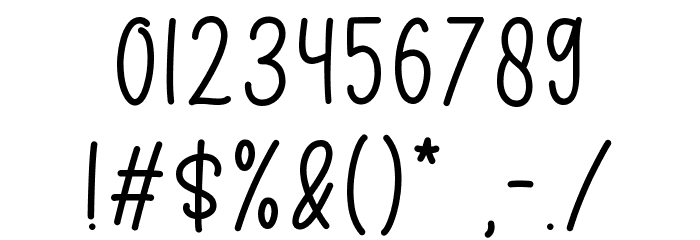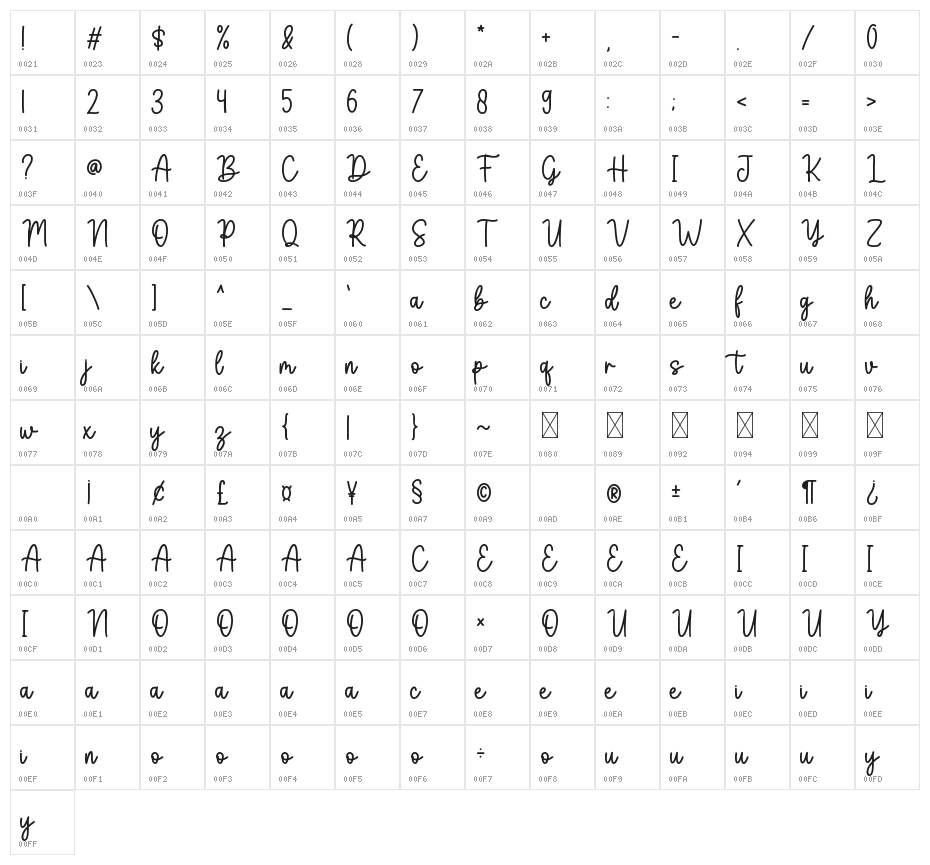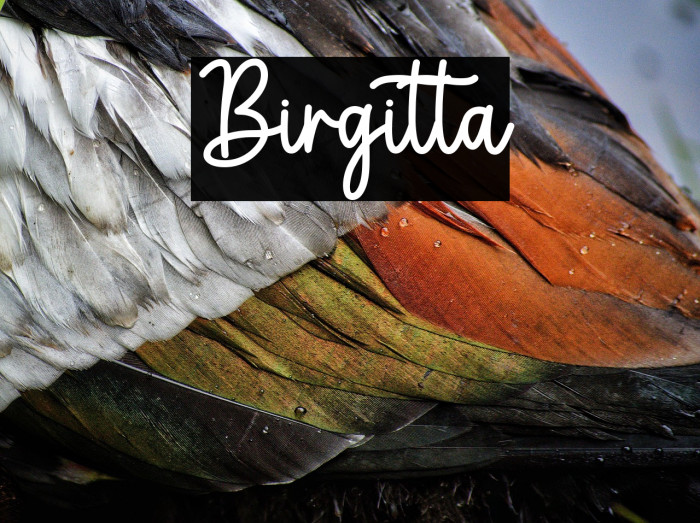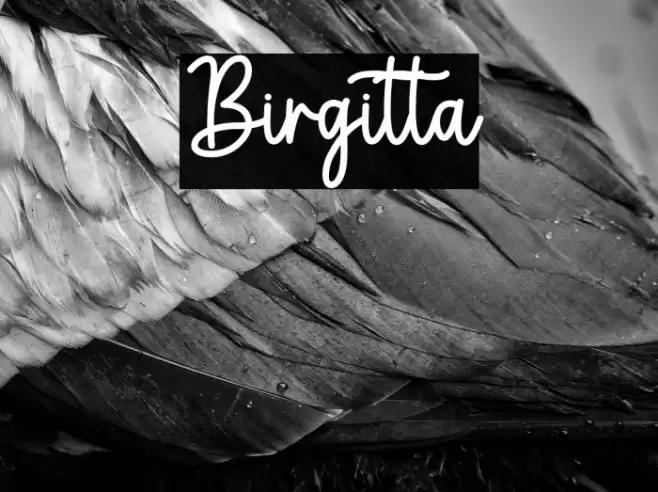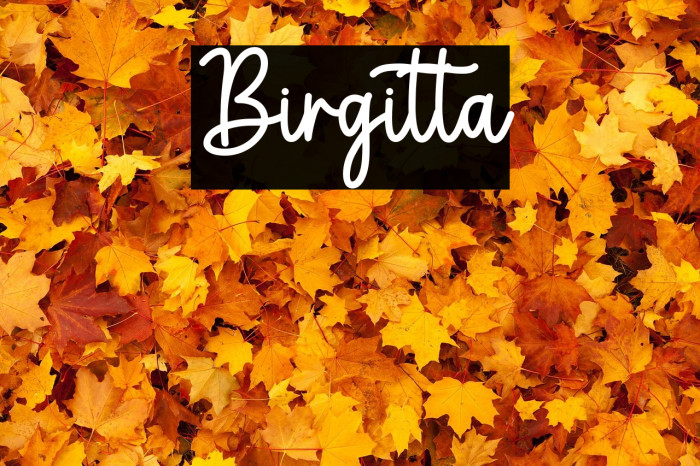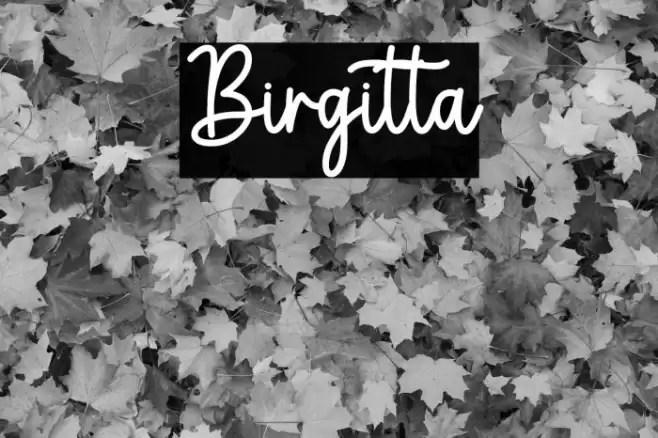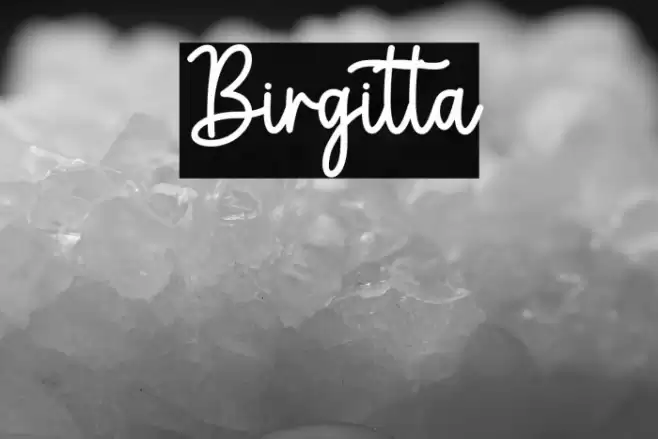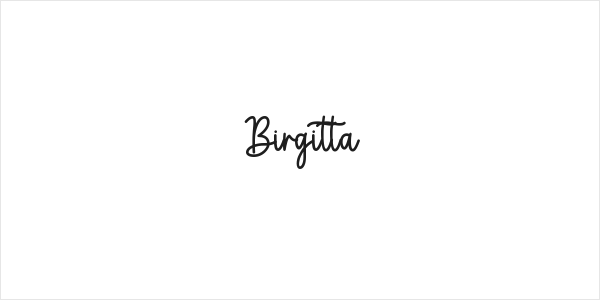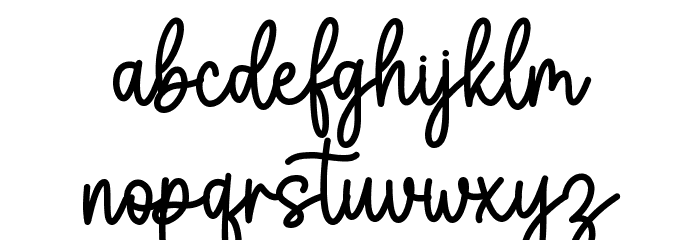
Birgitta Font
Birgitta Description
This font features a playful and casual handwritten style, characterized by its smooth, flowing lines and slightly irregular strokes. The uppercase letters are tall and slender, while the lowercase letters maintain a consistent baseline with occasional loops and flourishes that add a whimsical touch. The numbers are clear and legible, matching the overall style with a touch of personality. Special characters are well-integrated, maintaining the font's cohesive look. This font exudes a friendly and approachable vibe, making it suitable for a variety of creative projects.
| Use Case | Logos, Invitations, Social Media |
| Proposed Projects | Ideal for greeting cards, invitations, personal branding, and social media graphics. |